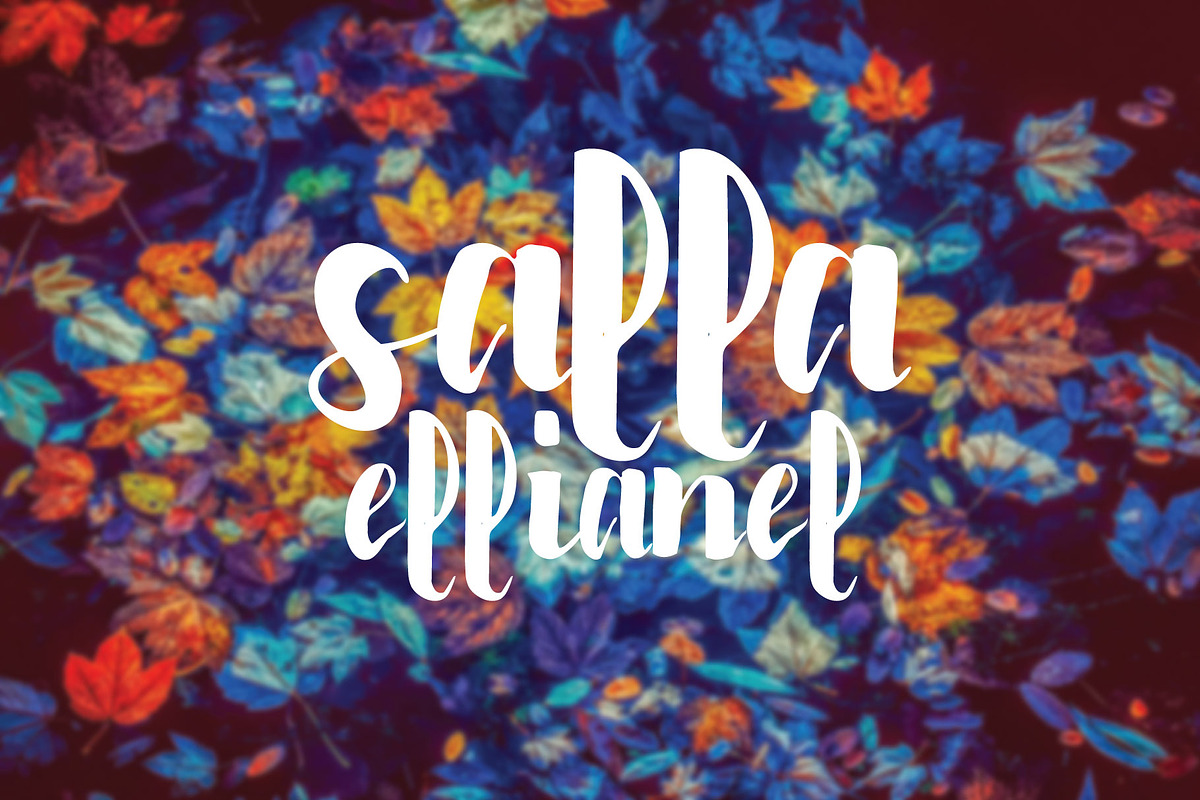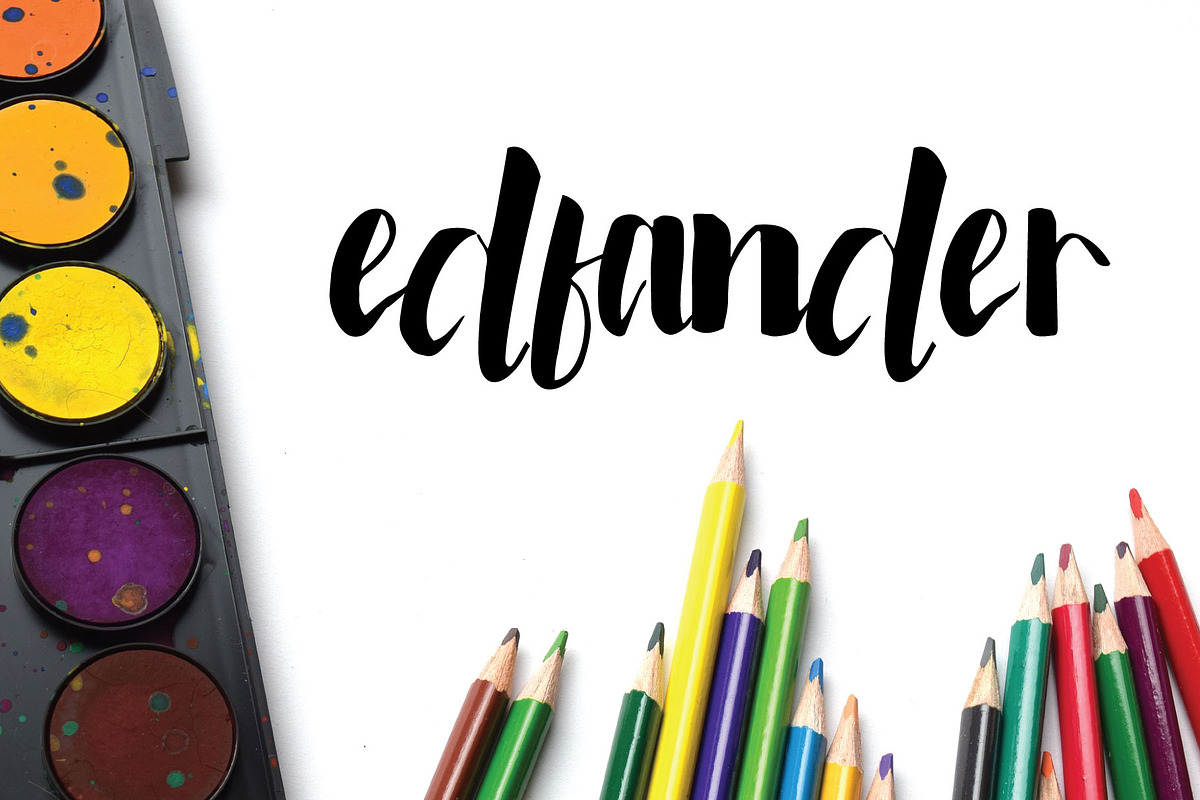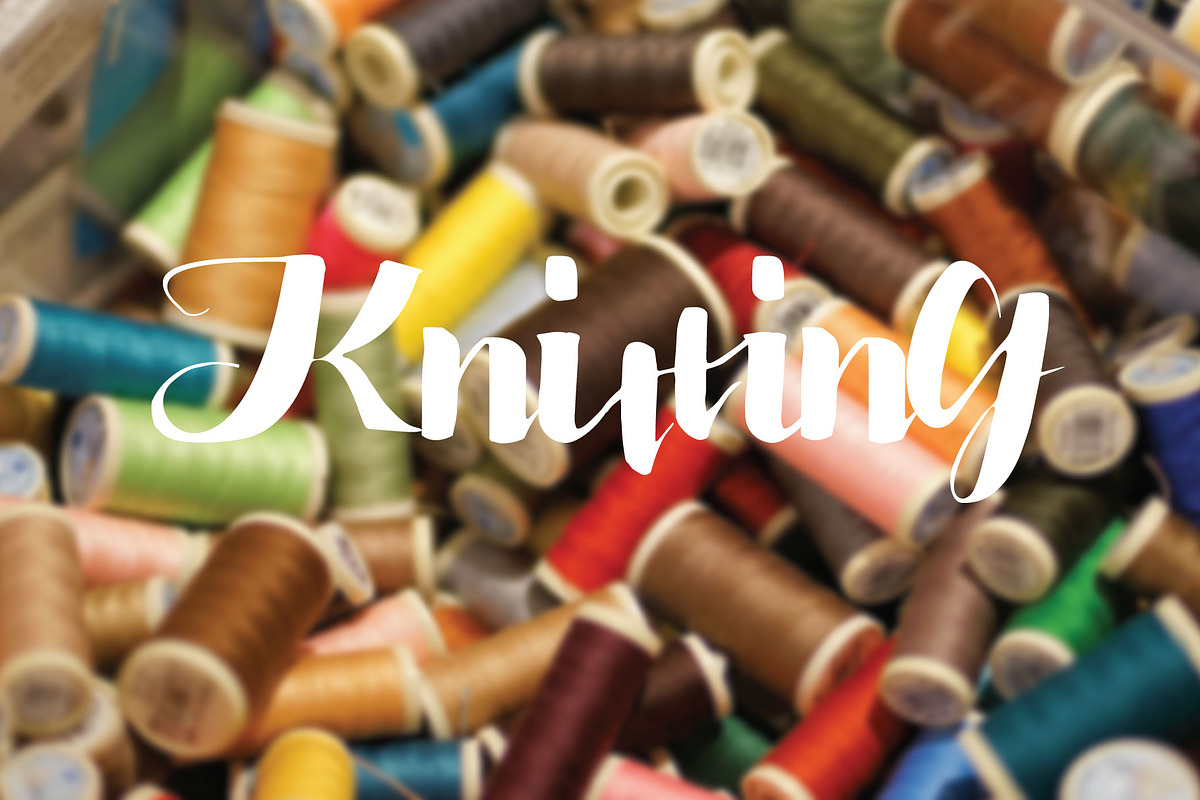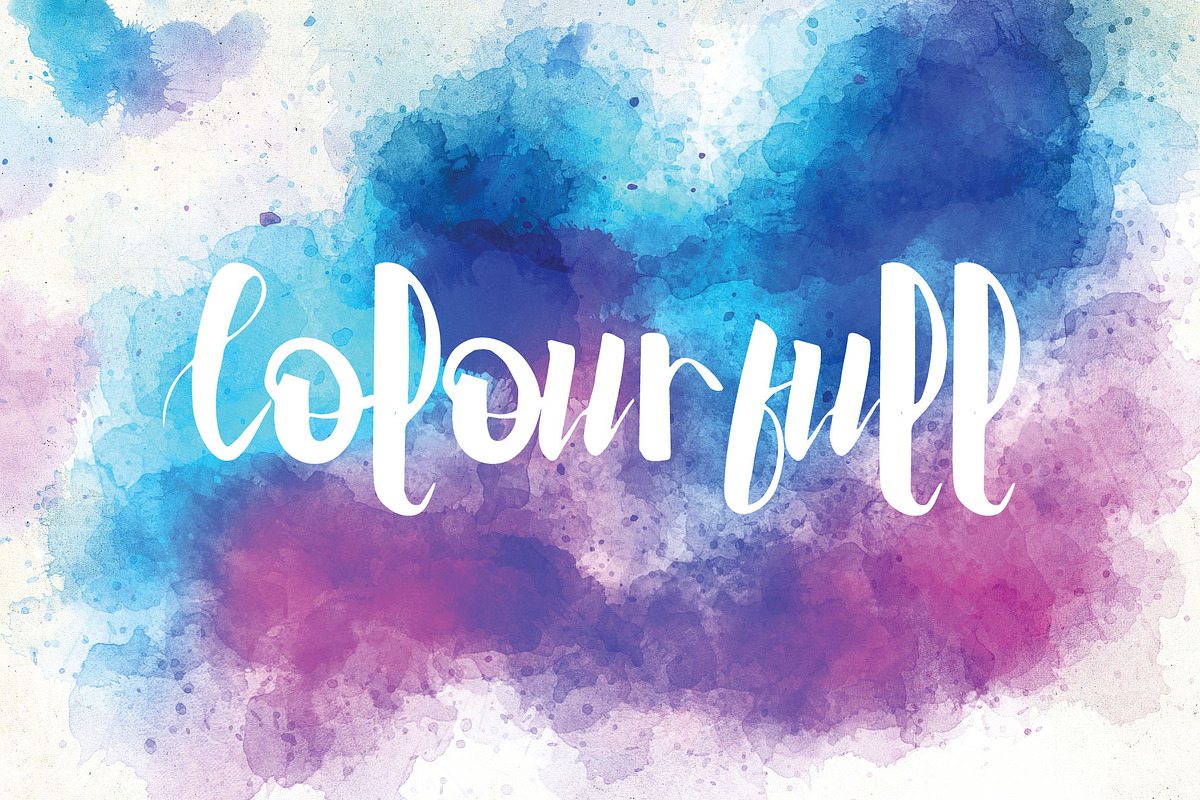
edfander font
Edfander Font by Goodigital13 is a font selected for branding, posters, packaging, typography.
Why edfander font is worth a look
edfander font by Mariyana fits naturally into Branding, posters, packaging, typography.